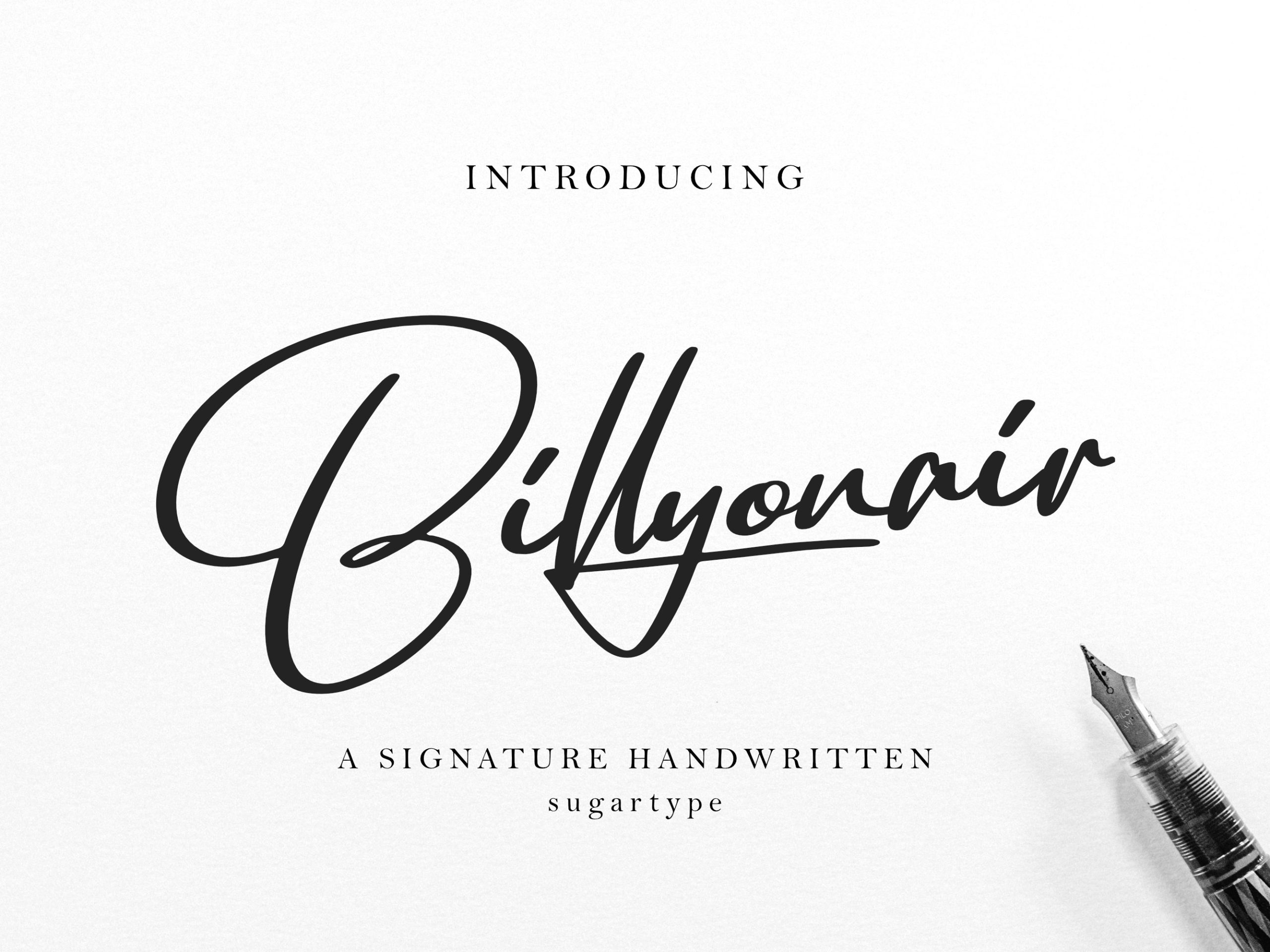
Billyonair Font
The lettering called Billyonair is concise and elegant but in the attempt to create a graphical font for the handwritten style, it seened to include an authentic character for the signature. It is beautiful when used on wedding invitation cards, thank you cards, quotes and greetings cards, logos, and business cards, and all designs that require that personal touch of handwritten texts.
Billyonair Handwritten Script Font